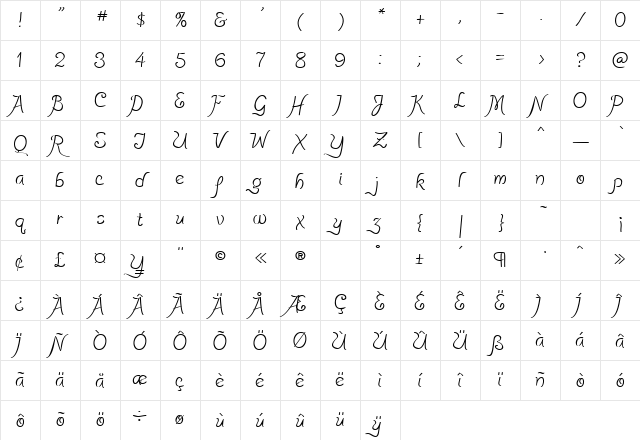
PensleCaligraf Regular Free Font
PensleCaligraf Regular
Design Context for PensleCaligraf
PensleCaligraf is a composed and adaptable typeface that performs quietly and consistently across a wide range of design contexts.